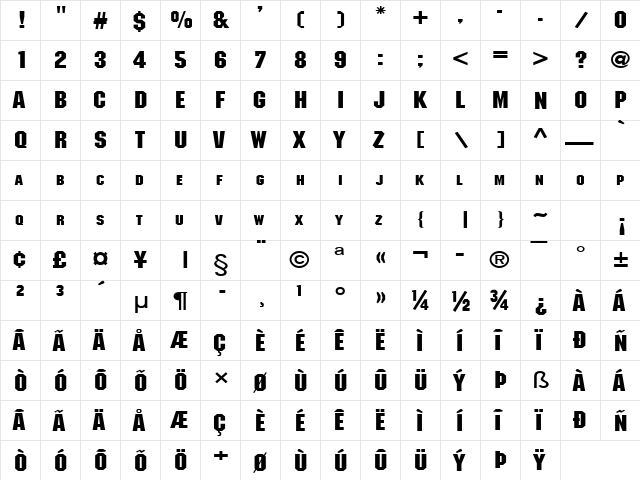
Block-Extended Bold
Block-Extended offers clean, dependable letterforms without strong stylistic allegiance, making it a practical choice for designers who need flexibility. The heavy weight commands attention and anchors typographic hierarchies.